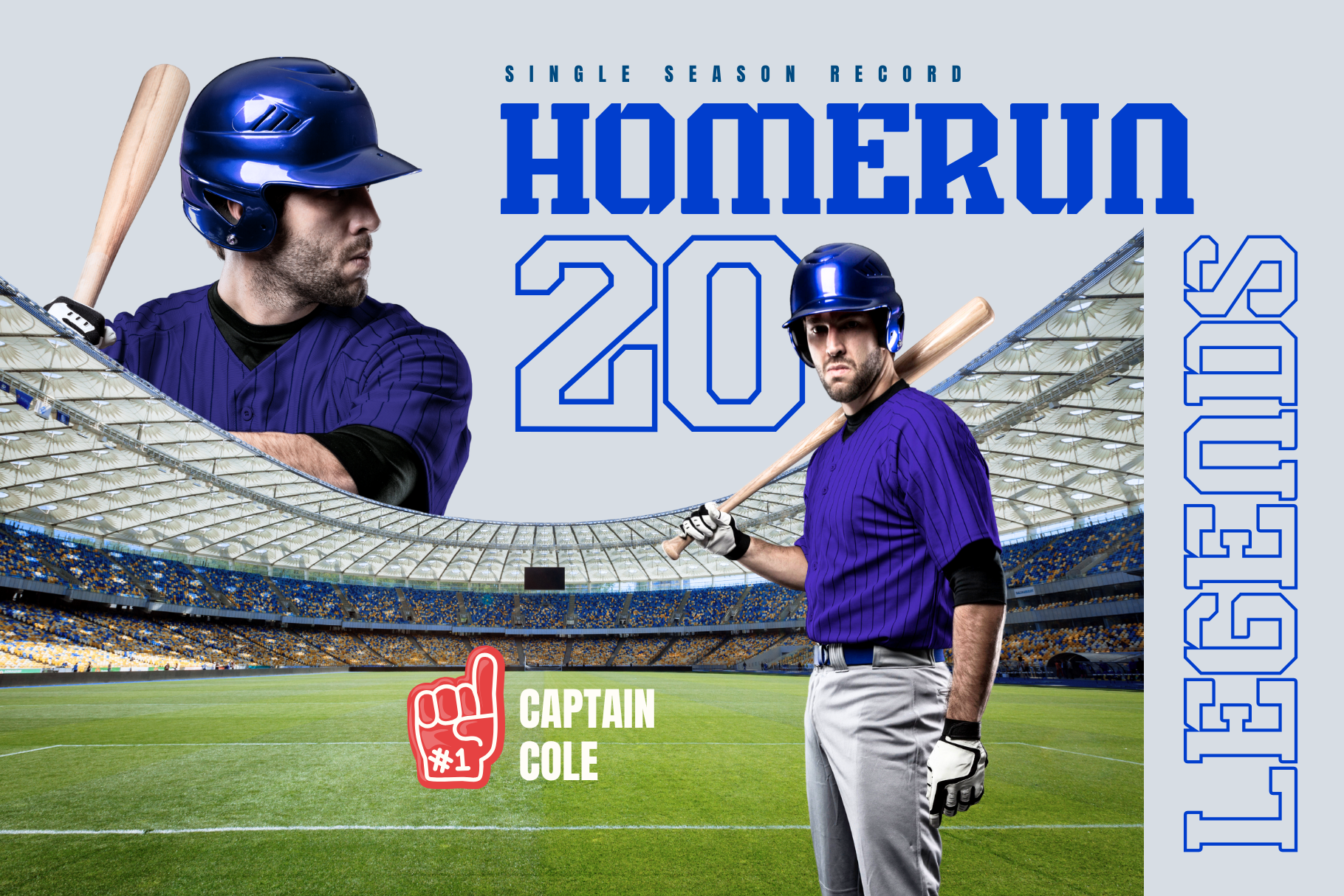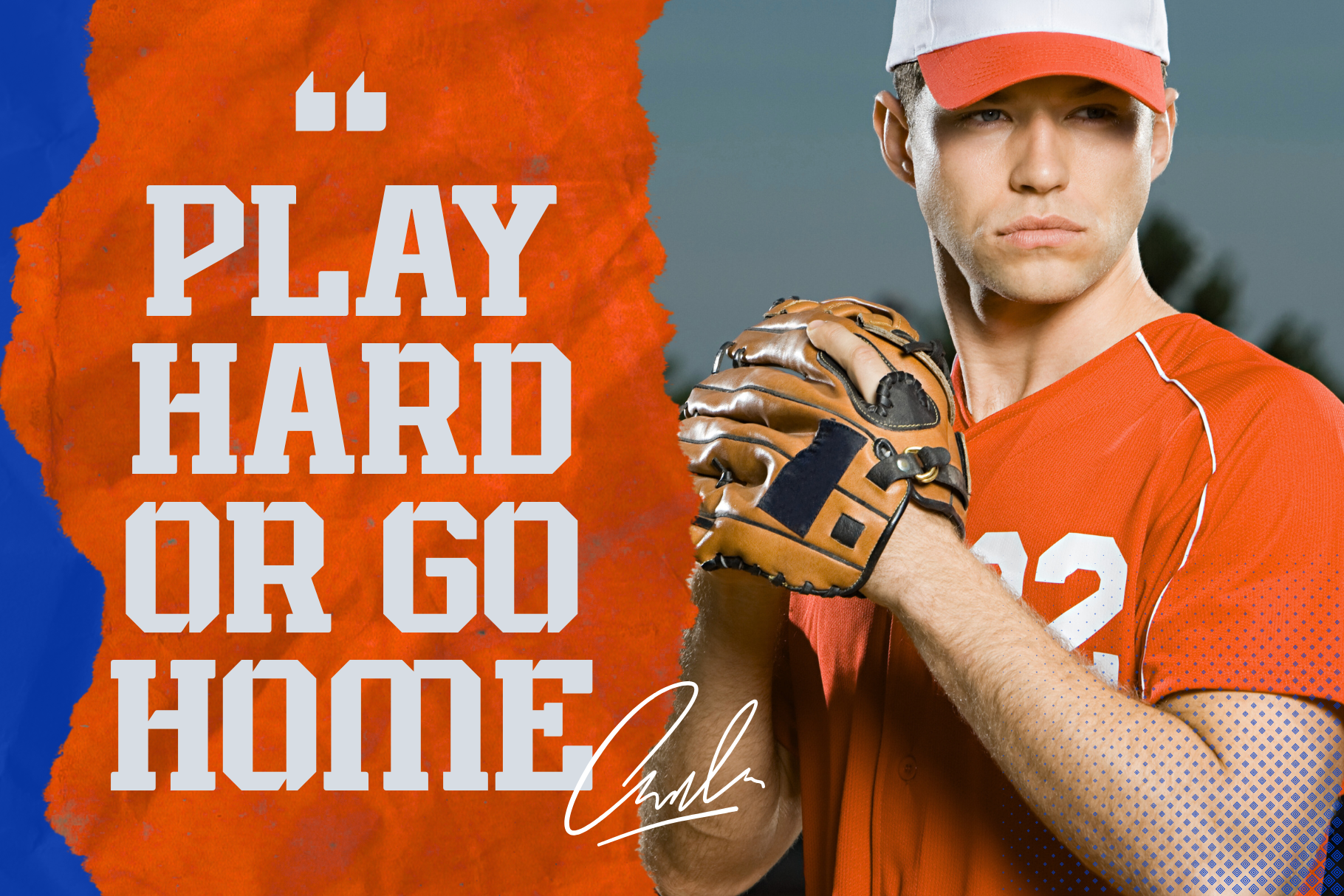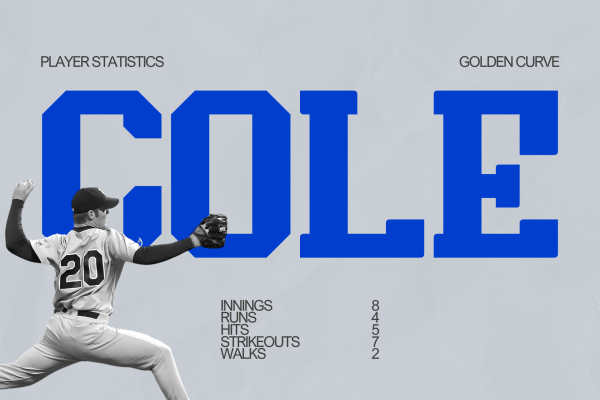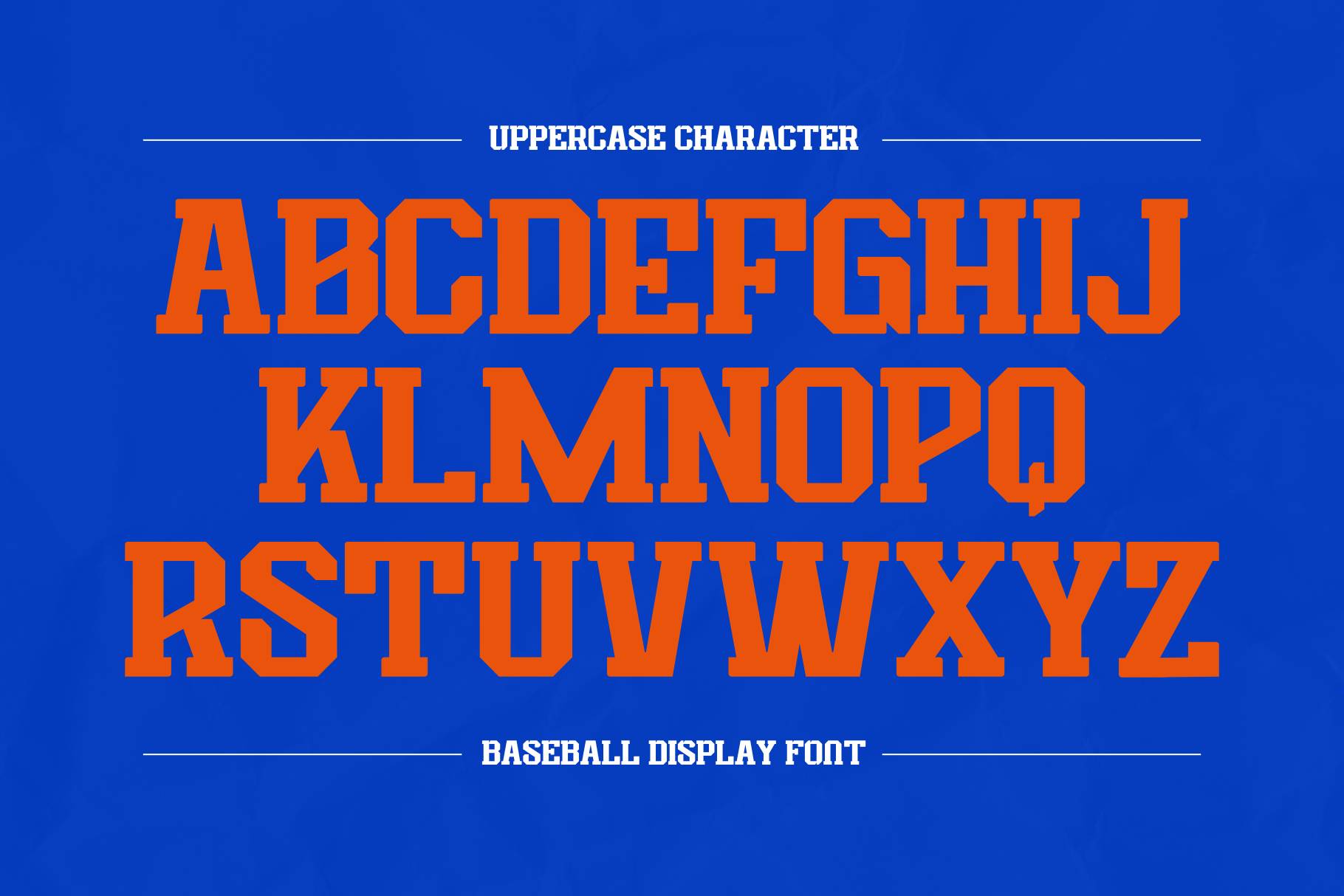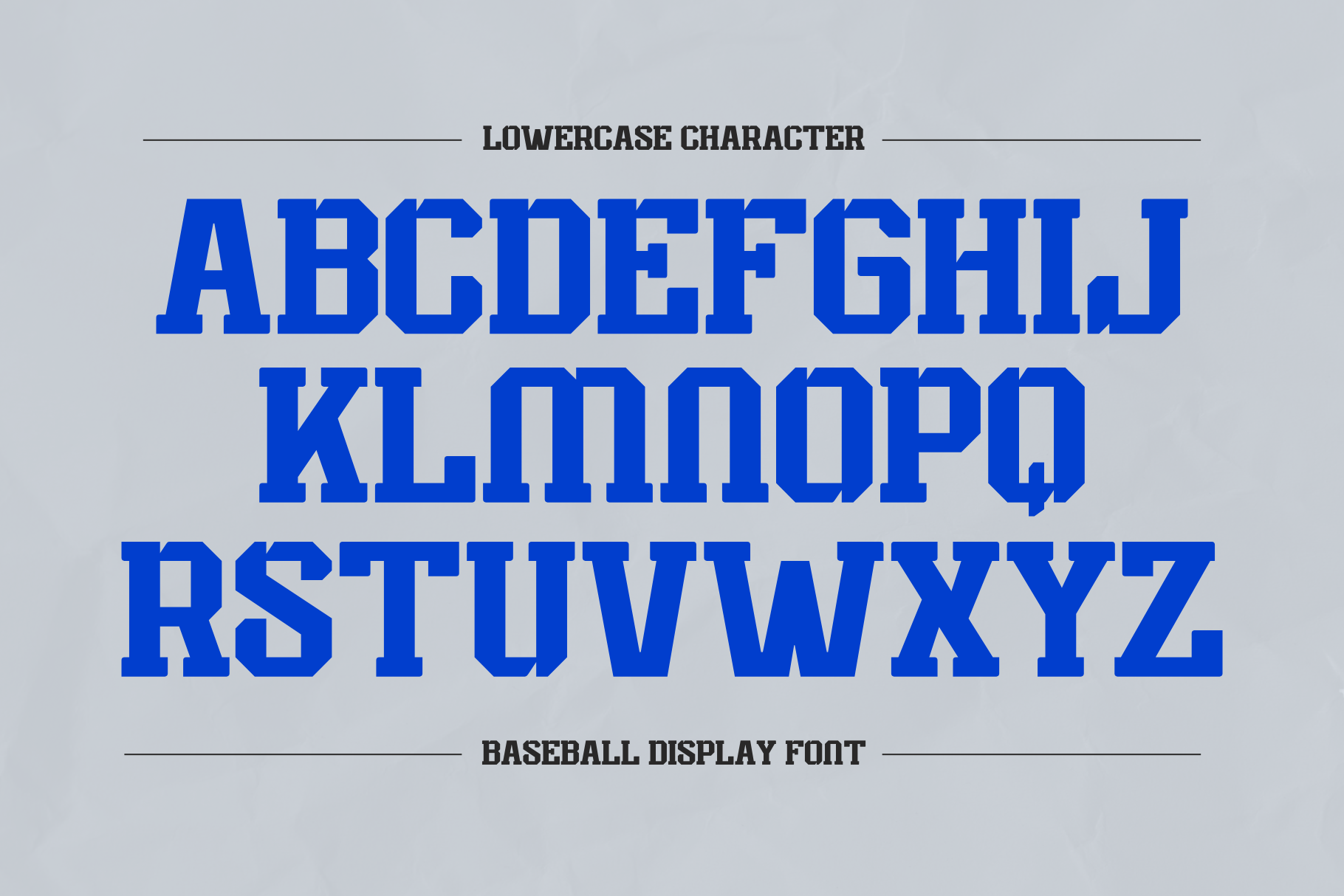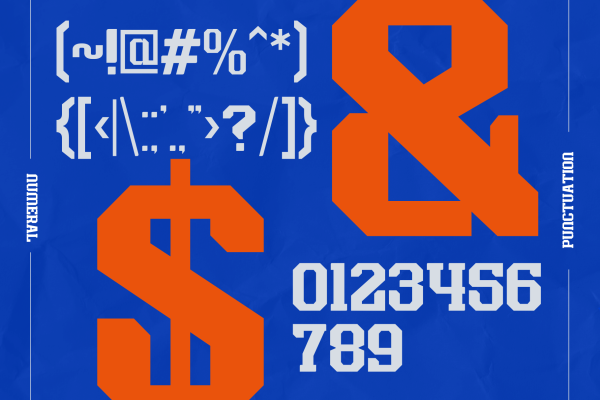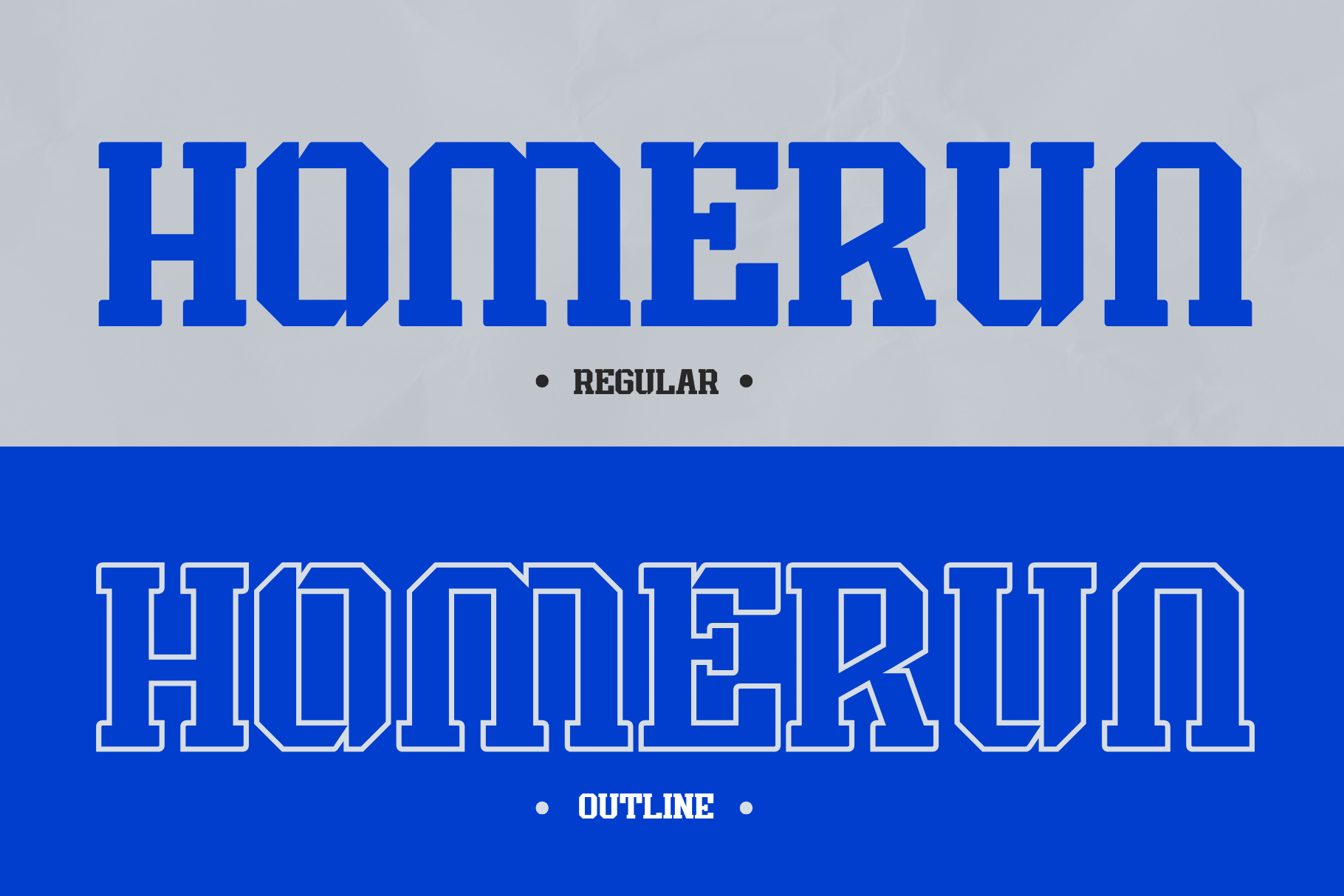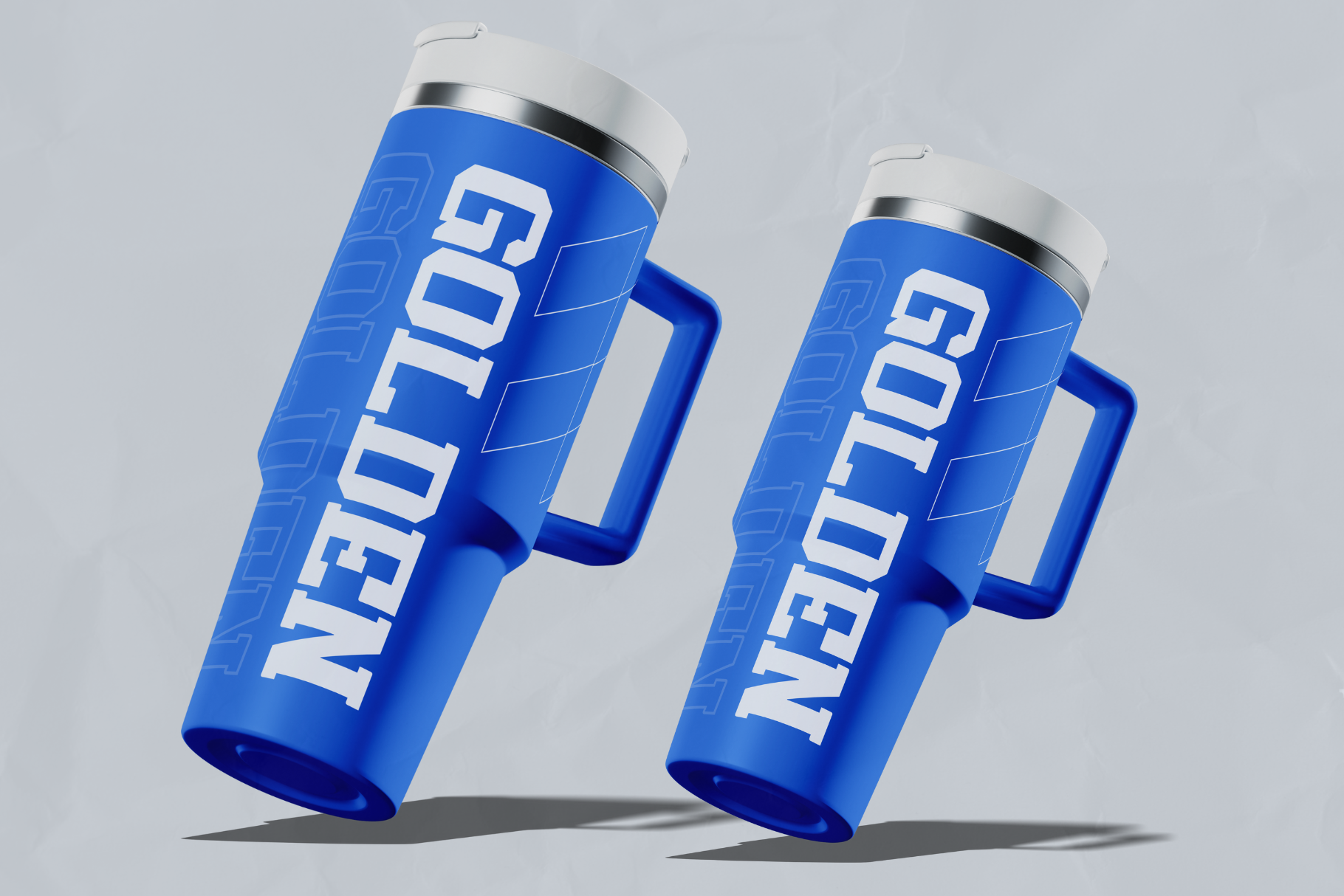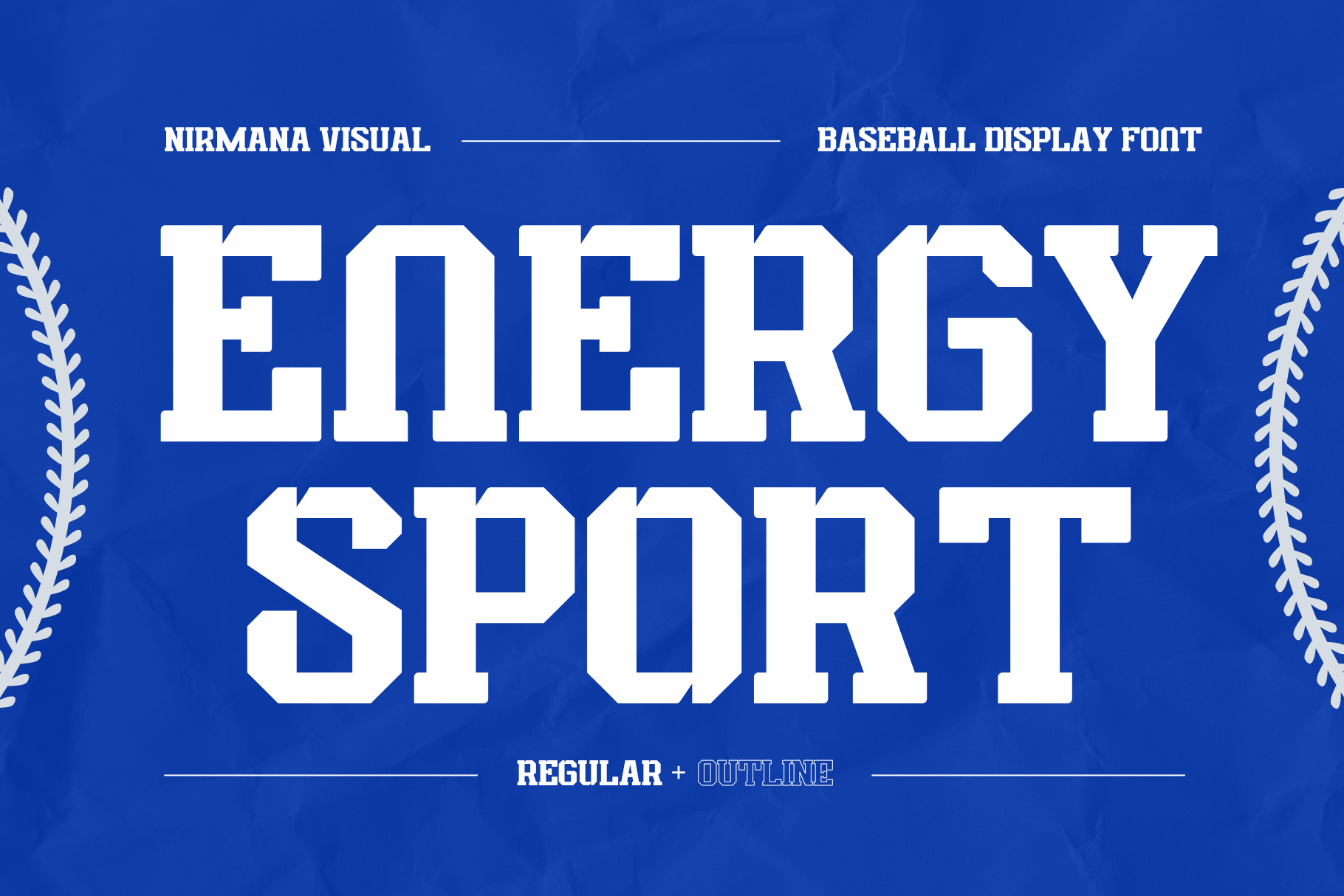
Energy Sport - Baseball Logo Font
Energy Sport offers beautiful typographic harmony for a diversity of design projects, including logos & branding, social media posts, advertisements & product designs.